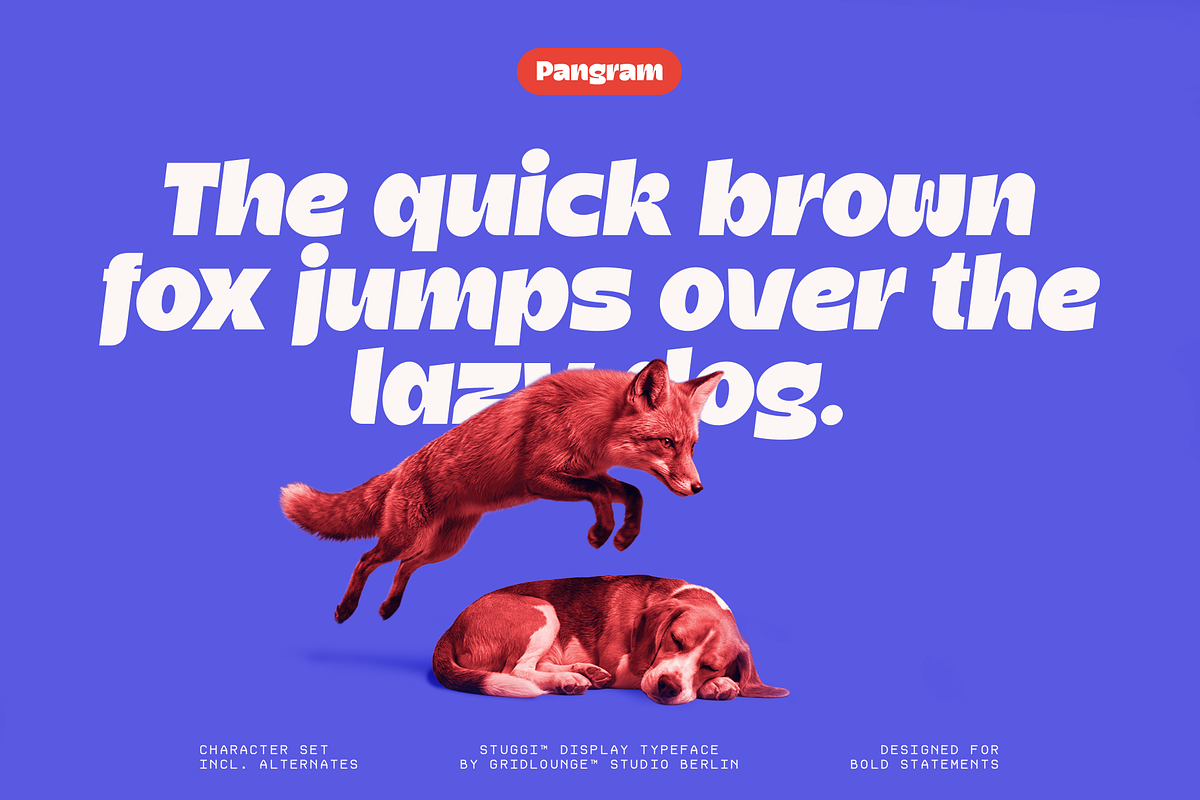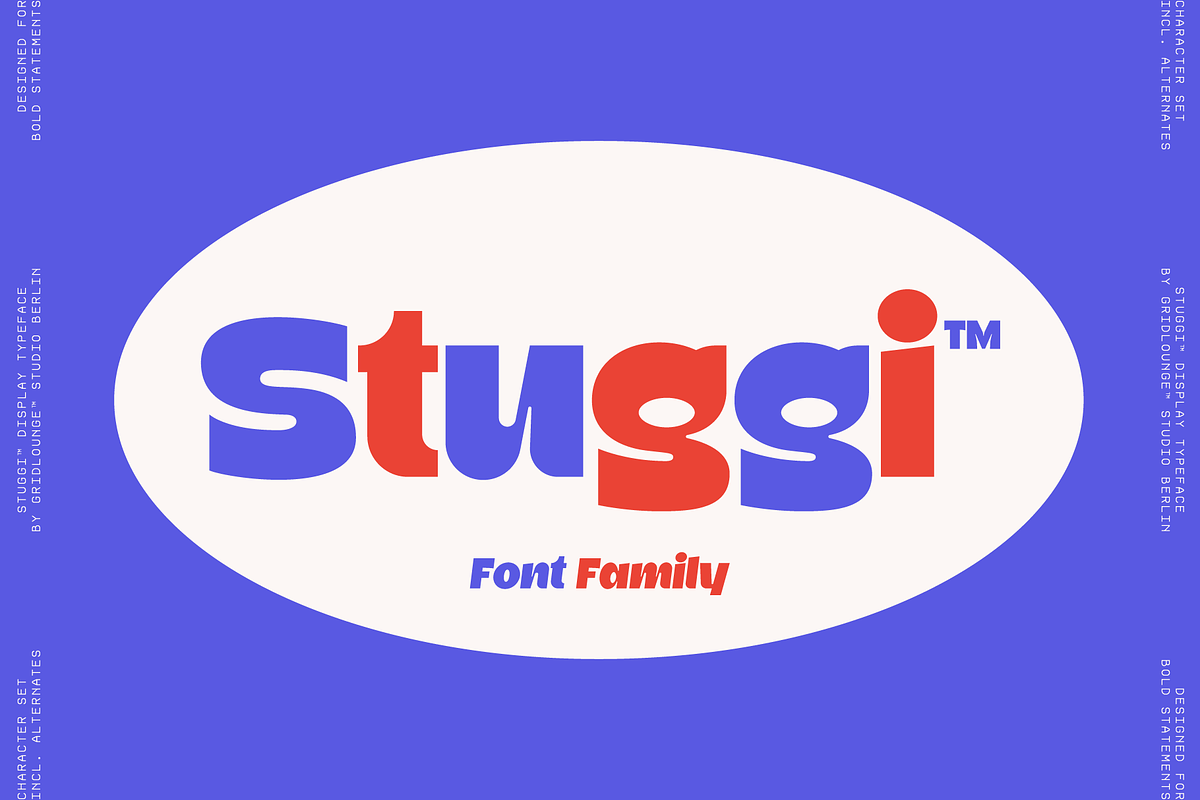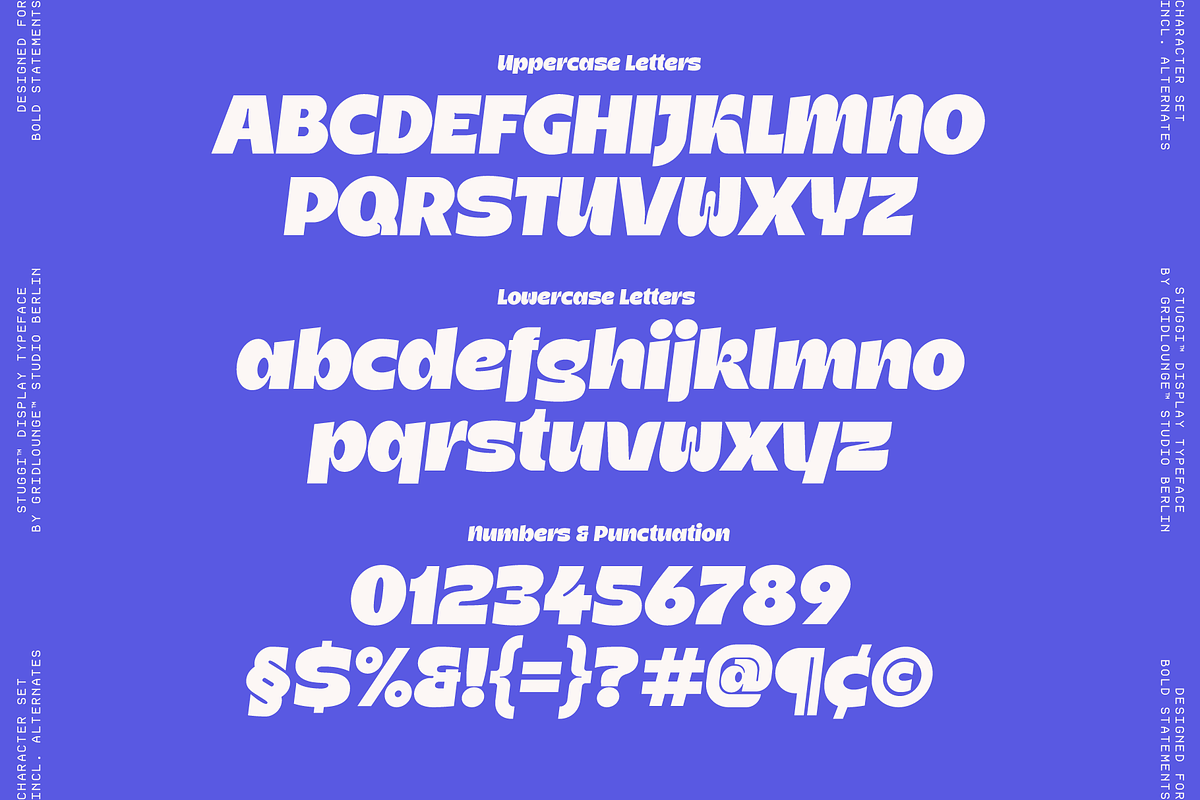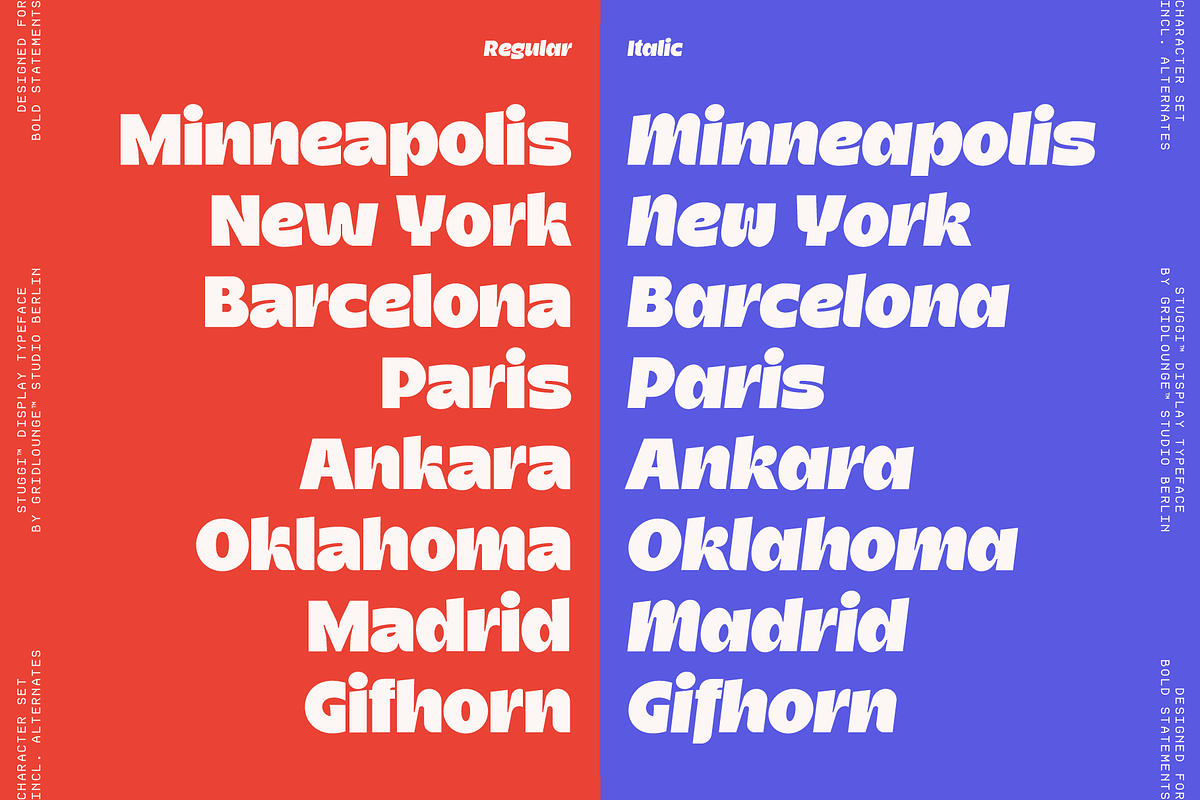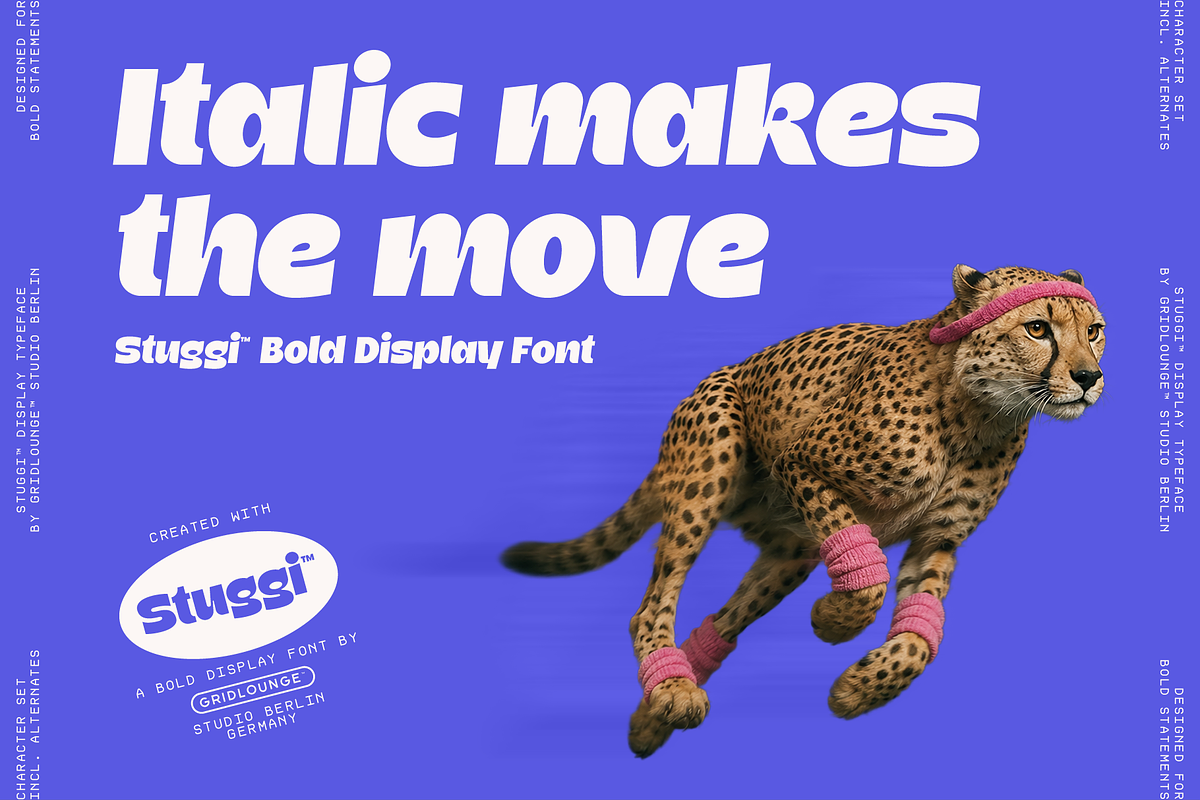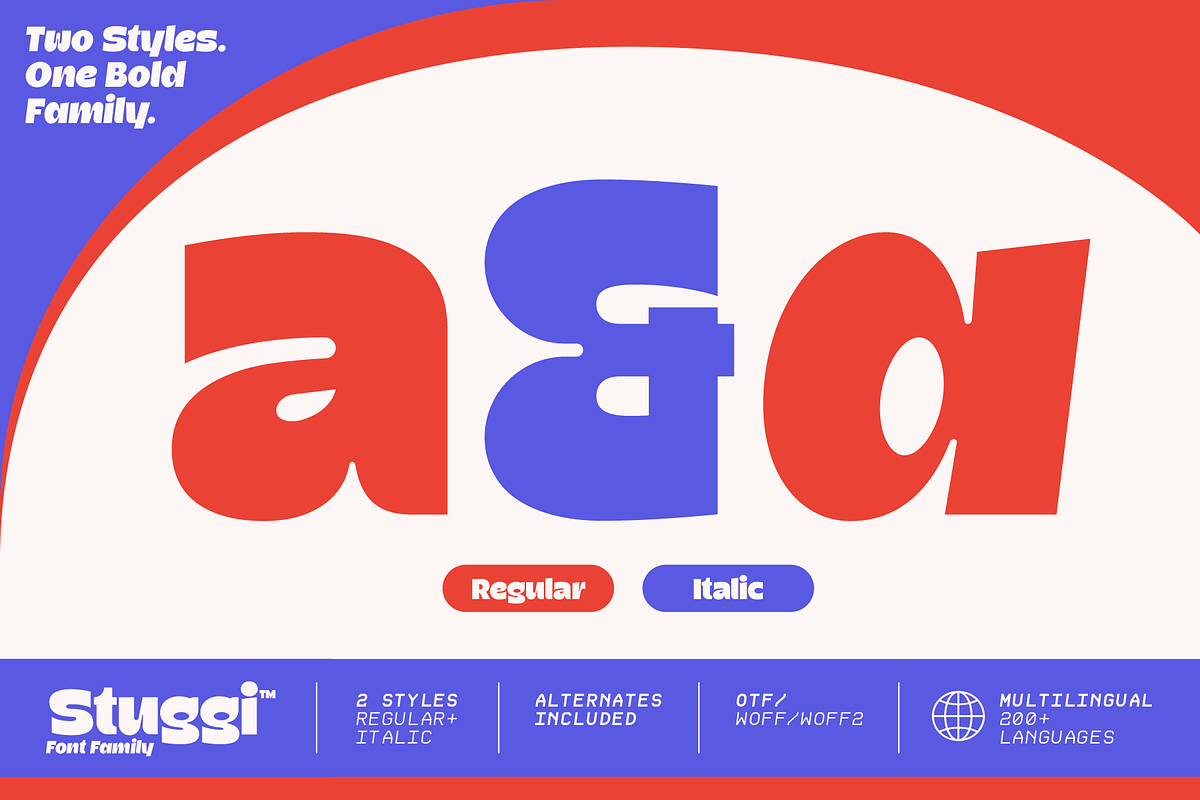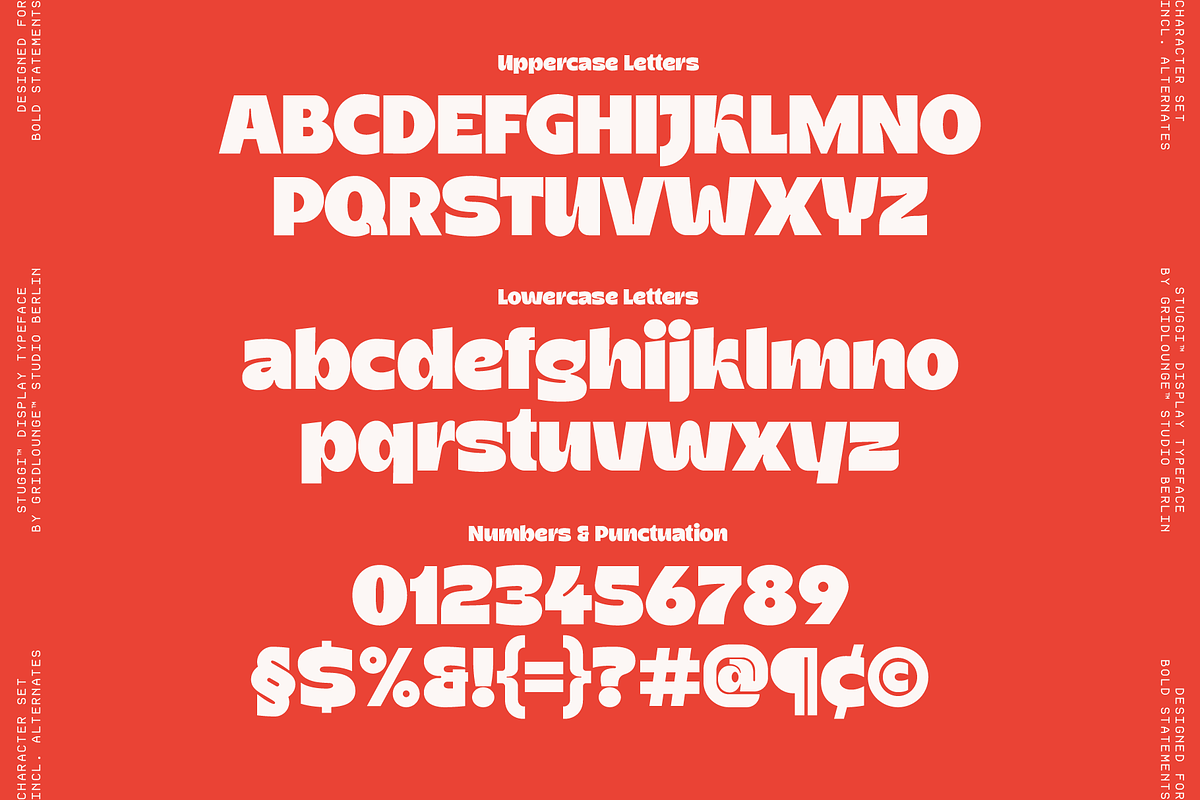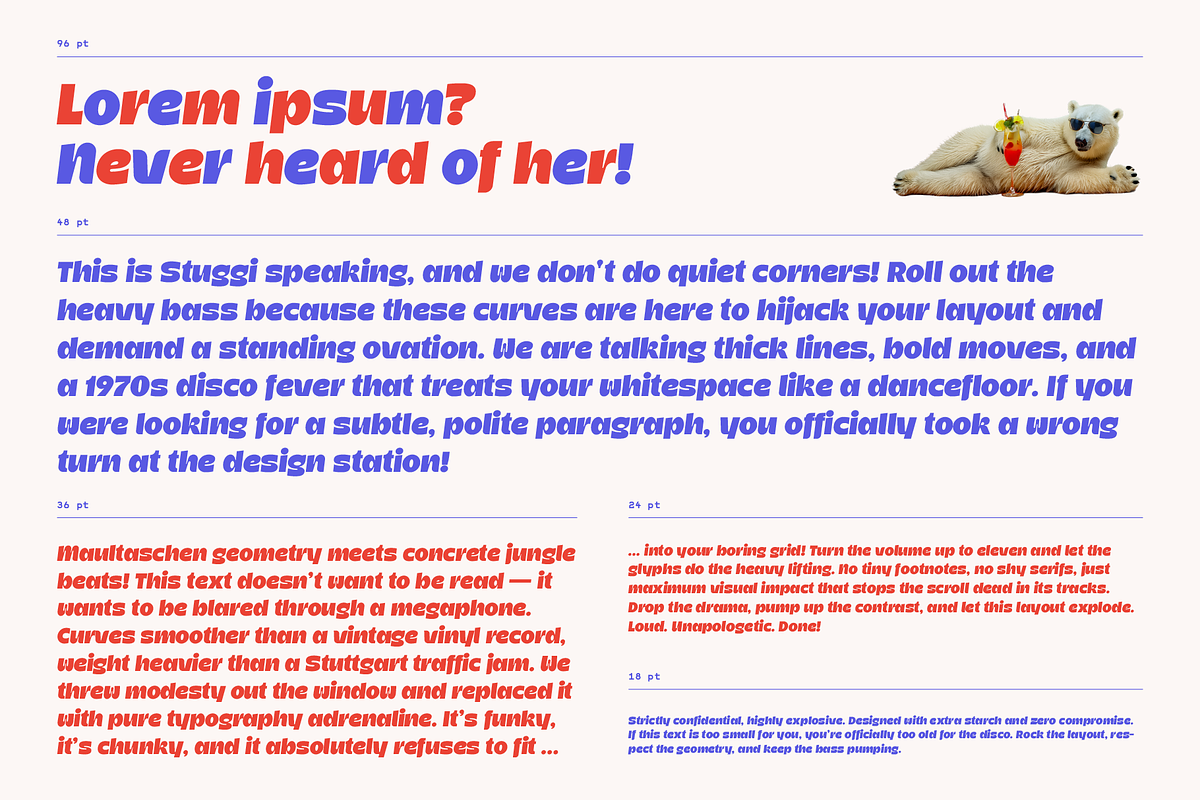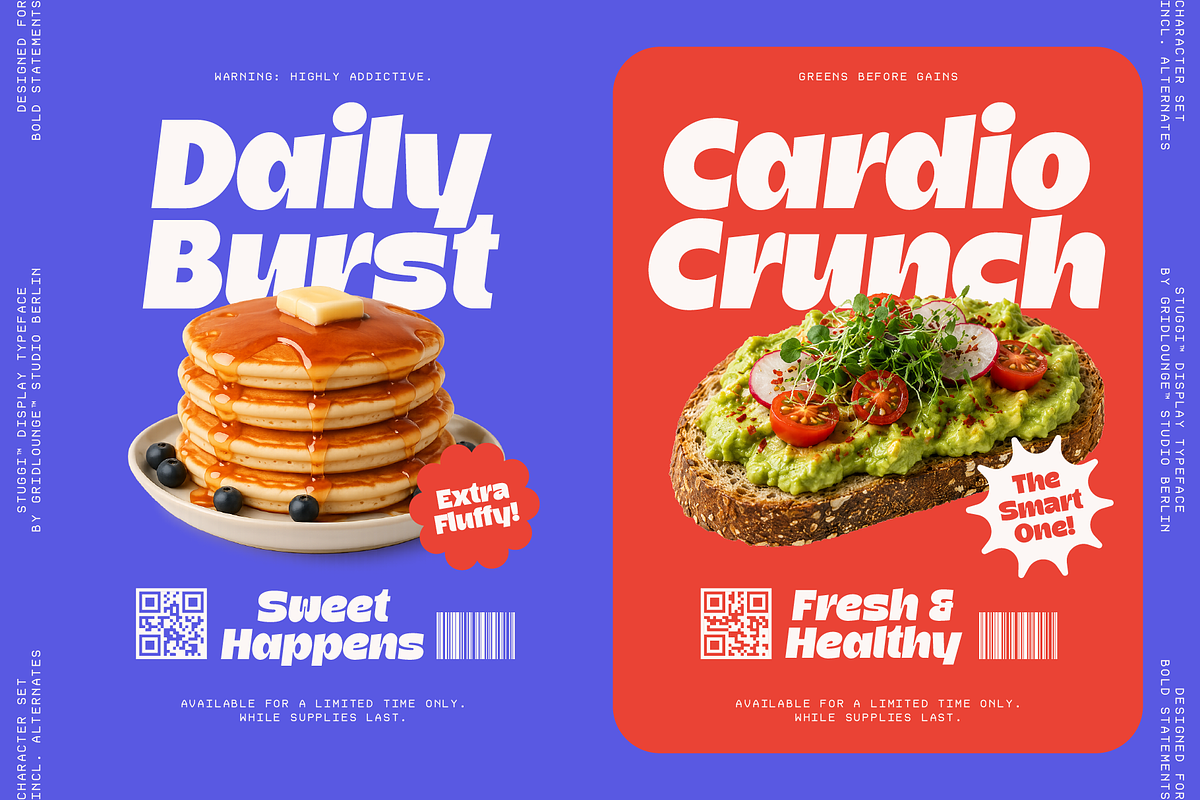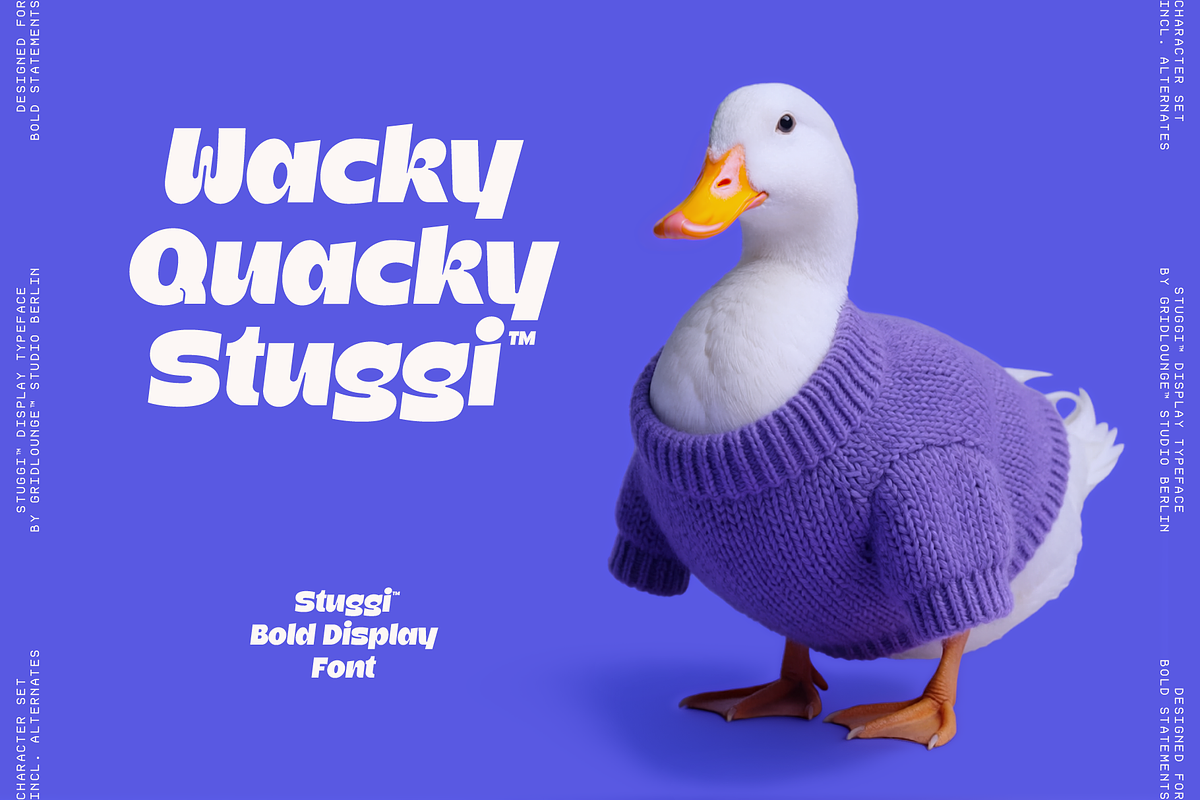
Stuggi — Regular & Italic
Stuggi extends into a small but expressive type system that works through contrast rather than variation for its own sake.
The family consists of two coordinated styles: Regular and Italic. Together they build a clear typographic relationship — one grounded and stable, the other directional and dynamic.
The Regular cut carries the core voice of Stuggi: structured, confident, and present. It establishes clarity and gives compositions a strong typographic foundation.
The Italic cut shifts that voice. It introduces movement, tension, and a slightly more expressive rhythm. Used together, both styles create hierarchy and energy within layouts without losing consistency.
Rather than functioning as separate design choices, the two styles are meant to operate as a system — allowing typography to move between stability and motion while staying visually connected.
Stuggi remains rooted in contemporary urban design language, designed for work that needs presence, but also control.
Uppercase & lowercase characters
Numerals & punctuation
Stylistic alternates
Best used for
Brand identities, editorial design, posters, packaging, social content, and typographic systems where structure and contrast work together.